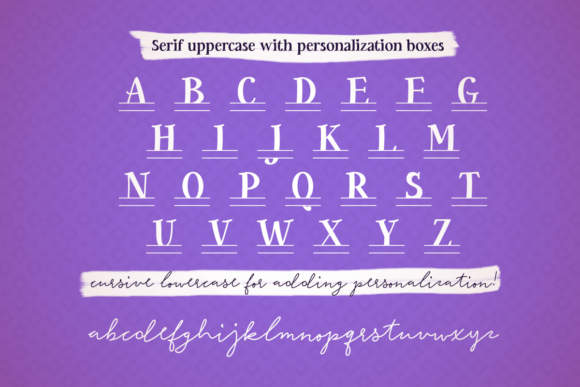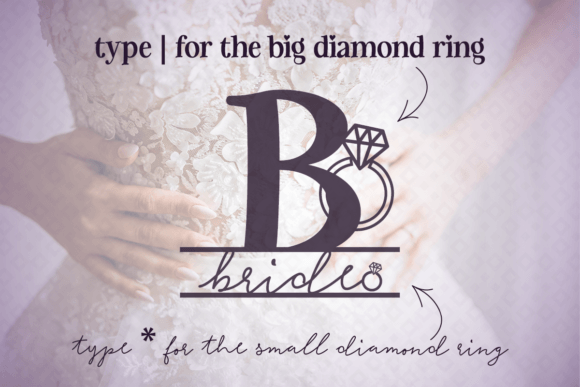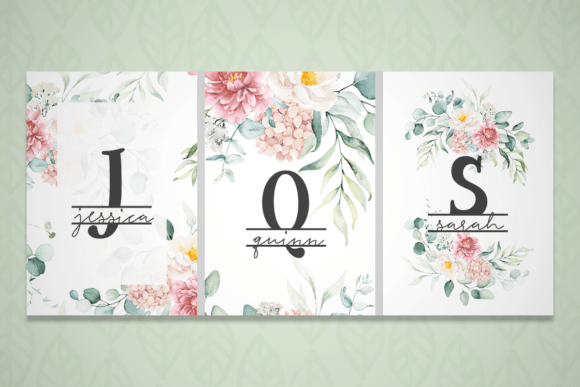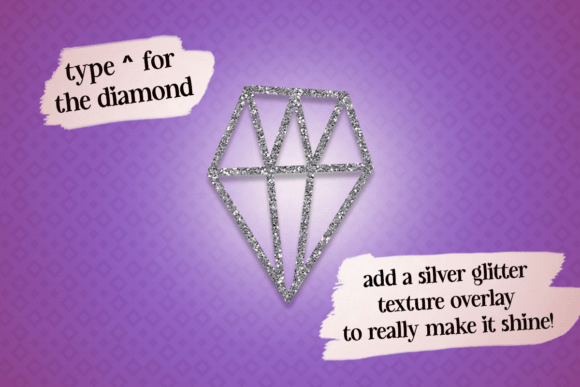
Introduction to Be My Diamond Font
Be My Diamond is a stunning, serif-styled monogram typeface.
It is a perfect fit for creating personalized wedding gifts such as tumblers, decorative pillows, pretty prints, and anything you can imagine It includes an elegant cursive typeface to type into the personalization boxes, but you can use any font you would like, making it versatile and accommodating to your own creative, unique designs.